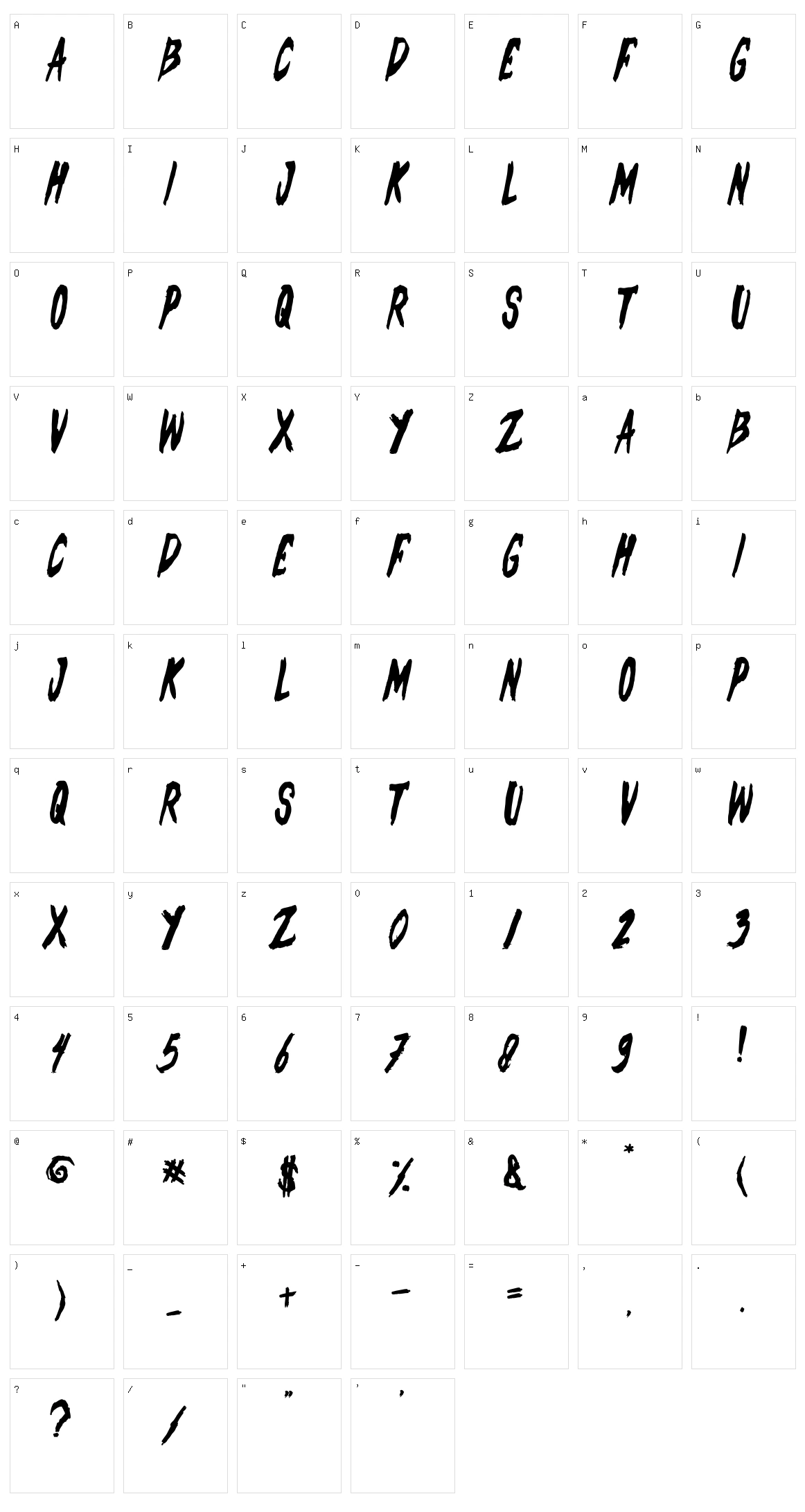
The free font Splash Bleeding is carefully designed by Feri Fauzi, showcasing a thoughtful balance of creativity and usability and falls under the Horror font style. When you download the ZIP file, it contains only 2966.06 KB of font files, making it lightweight and quick to download. Please review the license details below to understand permitted usage and distribution rights. If license information is not available, we recommend using this font for personal projects only or contacting the author directly for commercial usage permissions.
Splash-Bleeding
Creator by Fery Fauzy